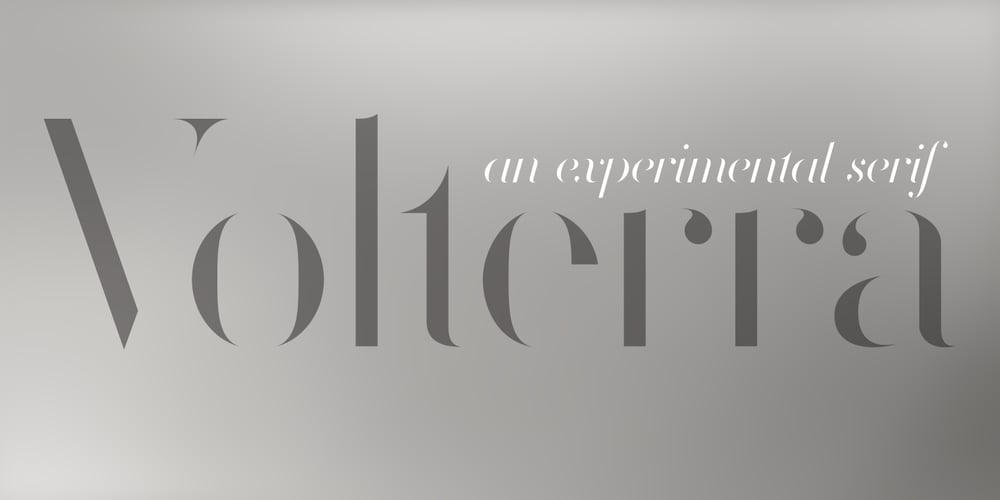
Volterra Font Family was designed by Thomas Johnson Quinn and published by Blank Is The New Black. Volterra contains 2 styles and family package options. In today’s typographic landscape, few would still consider Bodoni to have a “modern” feel, but there was once a time when it’s vertical axis and thinned horizontal strokes were considered radical. Volterra—inspired by the forms of Bodoni—finishes what Bodoni started and eliminates the horizontal stroke altogether, breathing an elegant new energy into a 200-year-old classic. Named for the artist hired to paint loincloths over Michelangelo’s “Last Judgement” when nudity in religious art was condemned, Volterra acknowledges that it is no easy feat picking up where a master left off. Volterra takes what has grown to feel traditional and transforms it into a delicate mixture of classic and modern, with razor-edged serifs and ultra-sharp strokes. Strictly a display face, the larger Volterra is used, the better it looks.